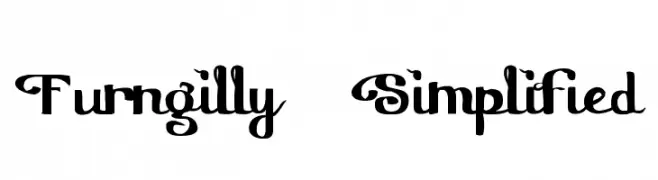
Elegant script font with ornate loops and cursive flow.
A playful and elegant script font with flowing swashes and loops.
A playful and whimsical script font with elegant loops and swirls.
An elegant, flowing script font with graceful loops and swirls.
A flowing, cursive font with elegant loops and swirls, perfect for artistic projects.
A cursive, handwritten-style font with elegant loops and swashes.
An elegant and flowing script font with graceful loops and swashes.
An elegant script font with flowing, intricate loops and swirls, exuding sophistication.
A cursive, handwritten-style font with elegant loops and swashes.
A whimsical, curly font with playful loops and swirls.
A sophisticated script font with elegant loops and swashes, perfect for decorative use.
A lively and flowing script font with elegant curves and playful loops.
A flowing, cursive font with elegant loops and a handwritten style.
A whimsical and decorative font with playful curls and loops, perfect for fantasy-themed projects.
A bold, playful handwritten font with unique curls and loops.
A whimsical, curly font with enchanting swirls and loops.
A flowing, elegant cursive font with graceful loops and curves.
A playful, cursive font with elegant loops and decorative swashes.
An elegant, flowing script font with graceful loops and a sophisticated style.
A graceful script font with elegant loops and flowing cursive style.
An elegant, flowing script font with graceful loops and swashes.
Elegant cursive font with graceful loops and swashes.
A festive, cursive font with elegant loops and swirls, perfect for holiday themes.
A graceful script font with elegant loops and flourishes.
An elegant script font with intricate loops and swashes, perfect for sophisticated designs.
A flowing, cursive font with elegant loops and a dynamic slant.
A flowing, cursive font with elegant loops and swashes.
A graceful, cursive script font with elegant loops and swirls.